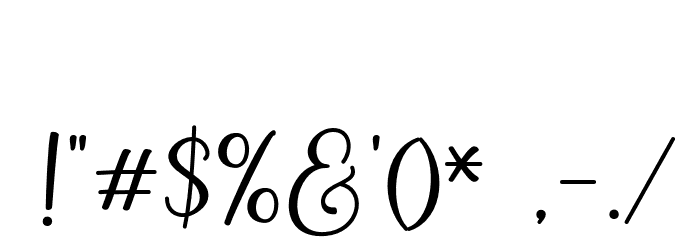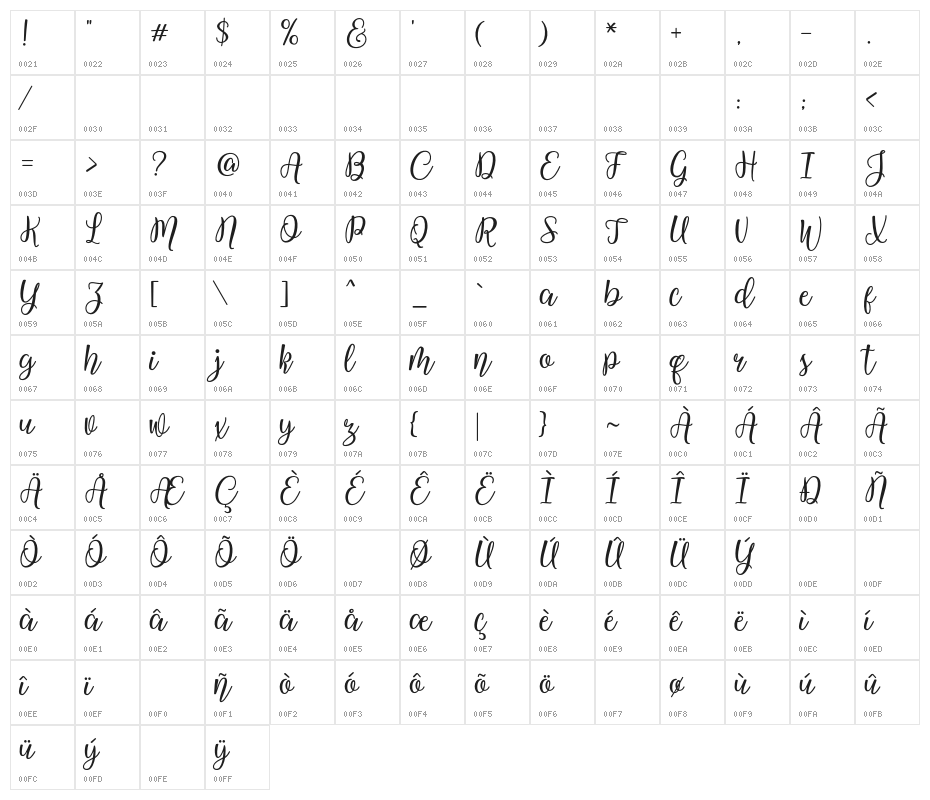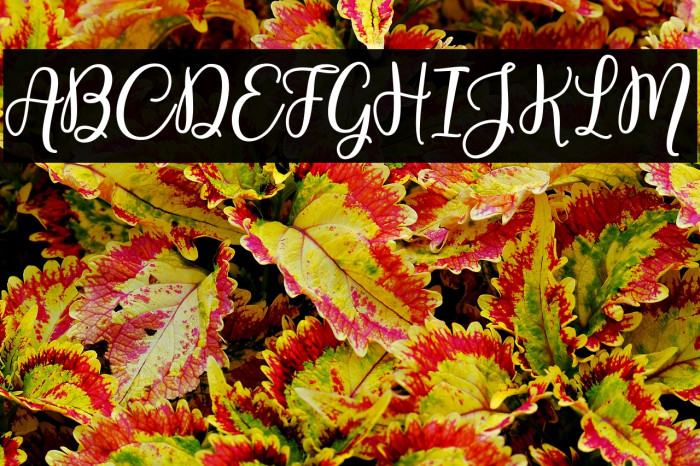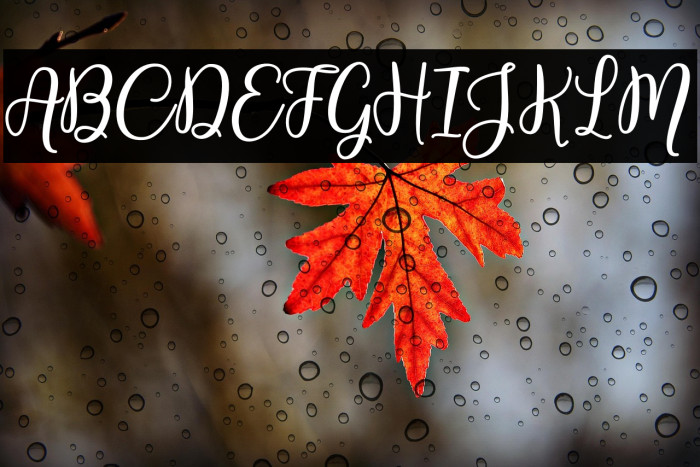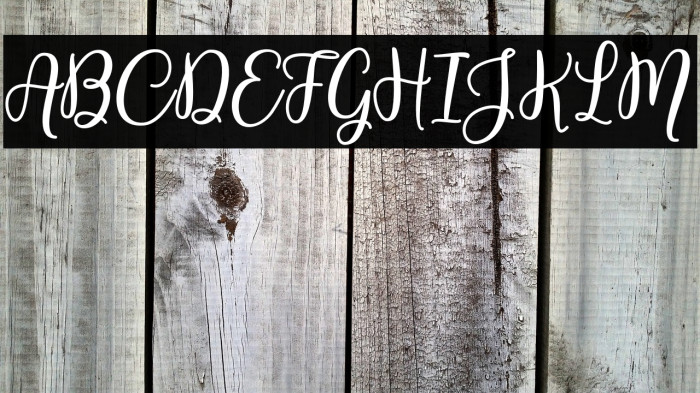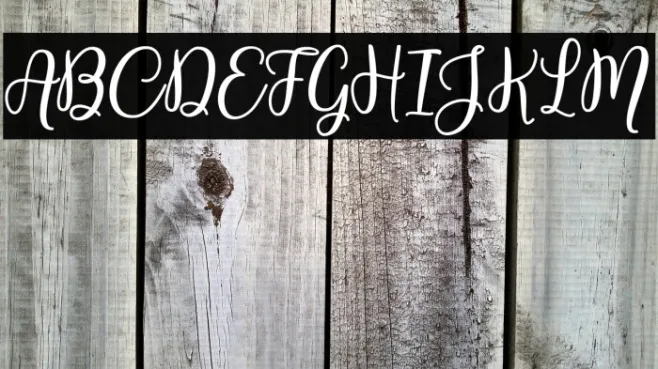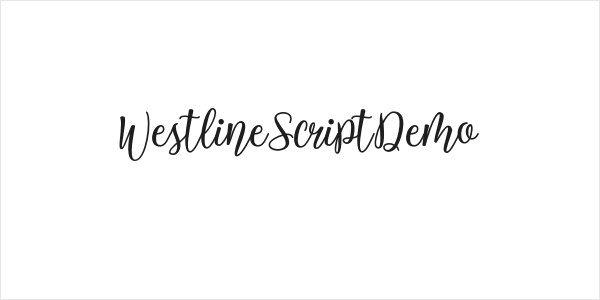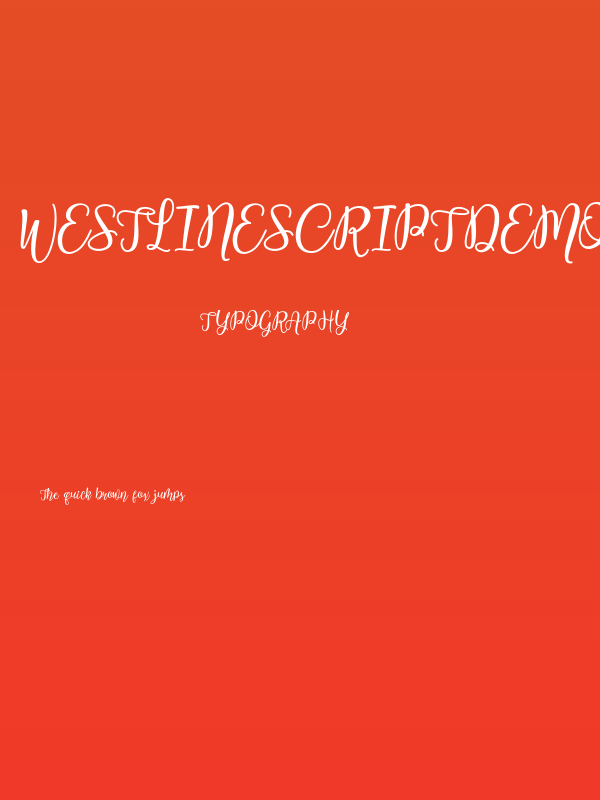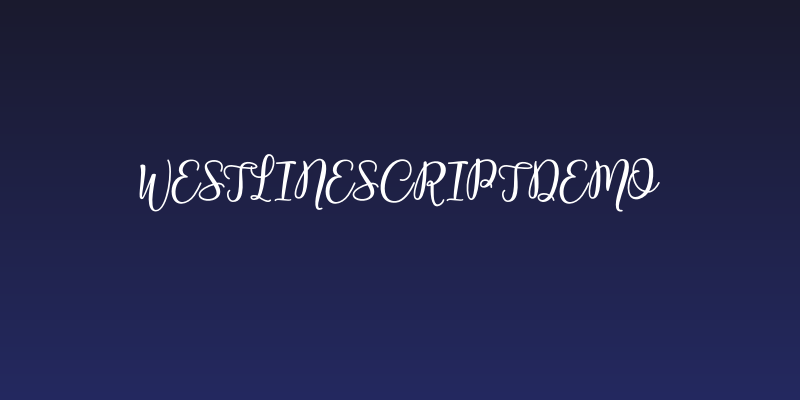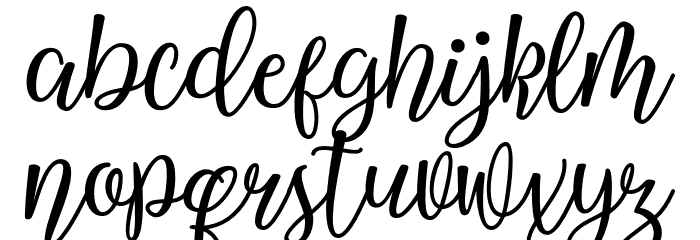
WestlineScriptDemo Font
WestlineScriptDemo Description
This font features a lively and flowing script style, characterized by its elegant, cursive letterforms. The uppercase letters exhibit a graceful, sweeping motion with intricate loops and curves, while the lowercase letters maintain a consistent fluidity that enhances readability. The font's design is both playful and sophisticated, making it suitable for a variety of creative applications. The characters are well-balanced, with a slight slant that adds to the dynamic feel. The special characters and numerals are designed to complement the overall aesthetic, ensuring a cohesive look across all text elements.